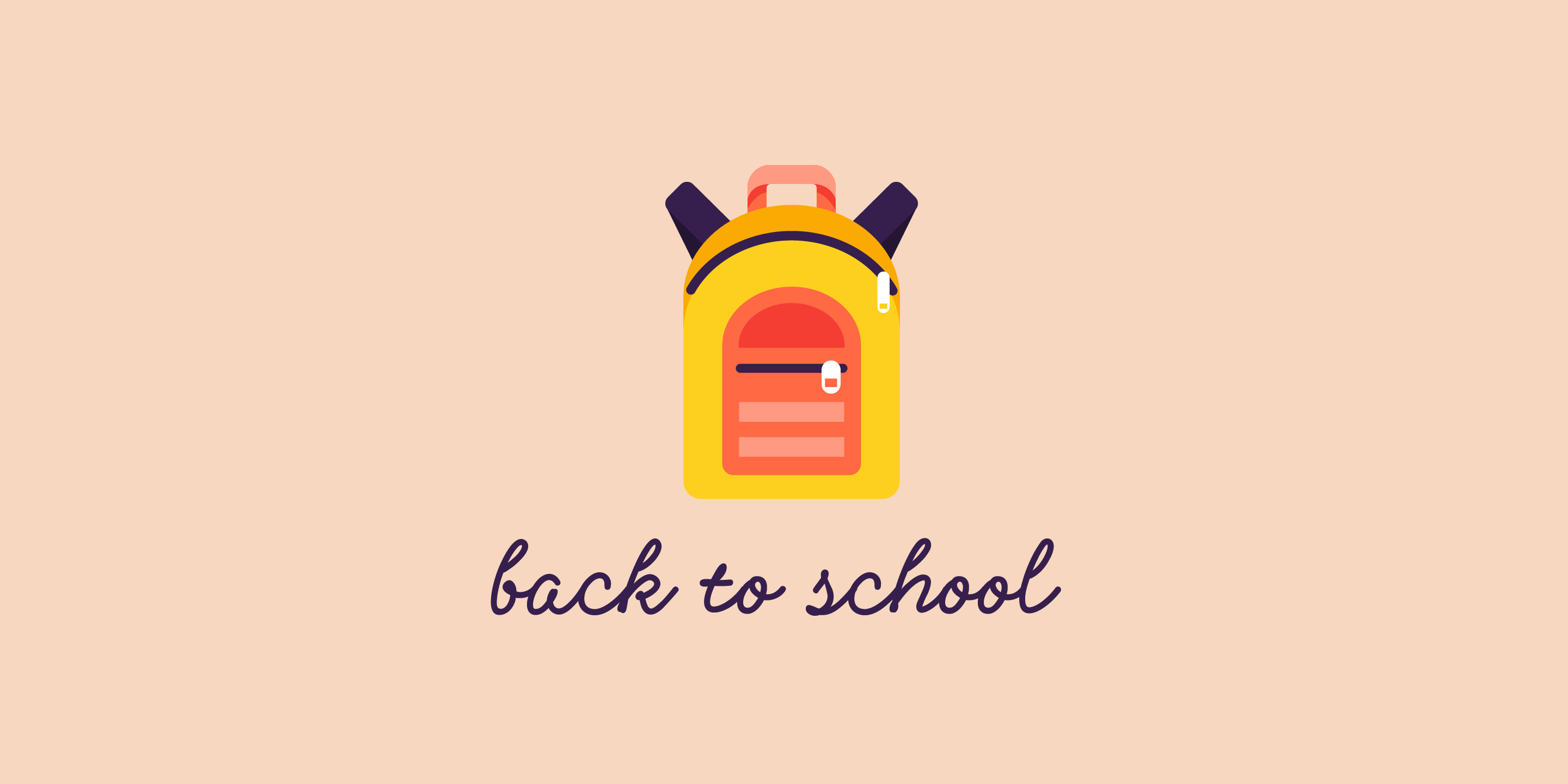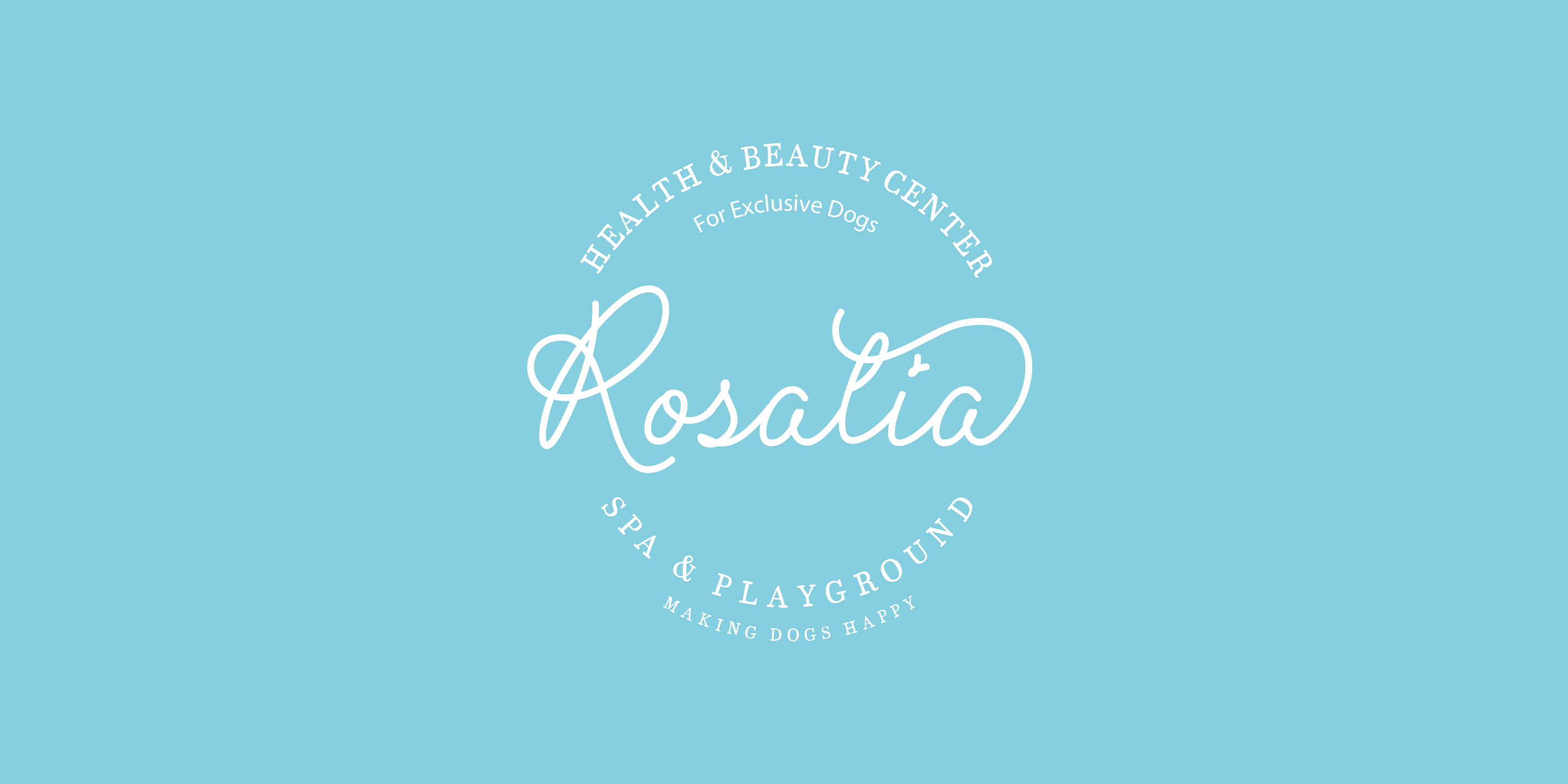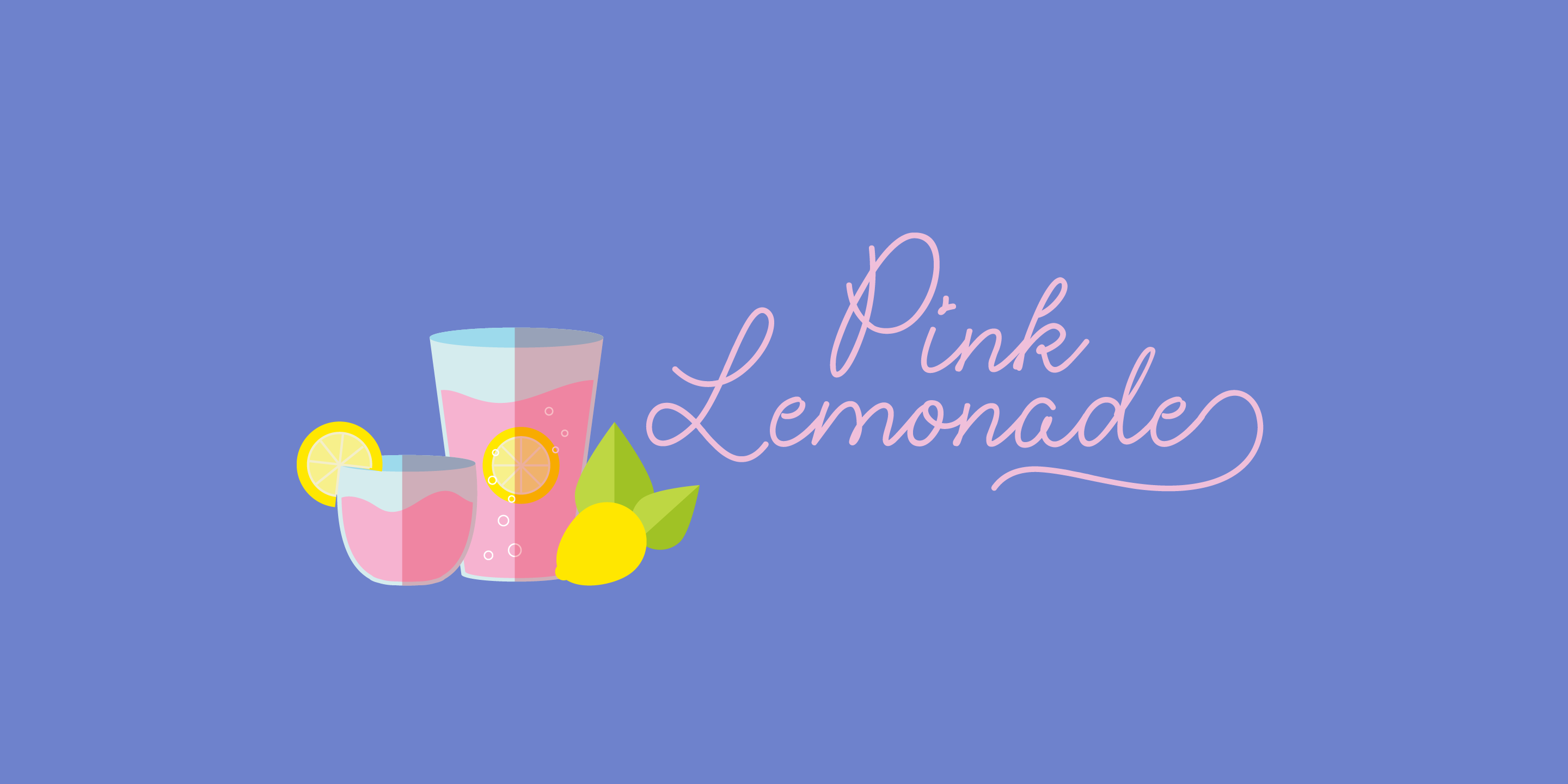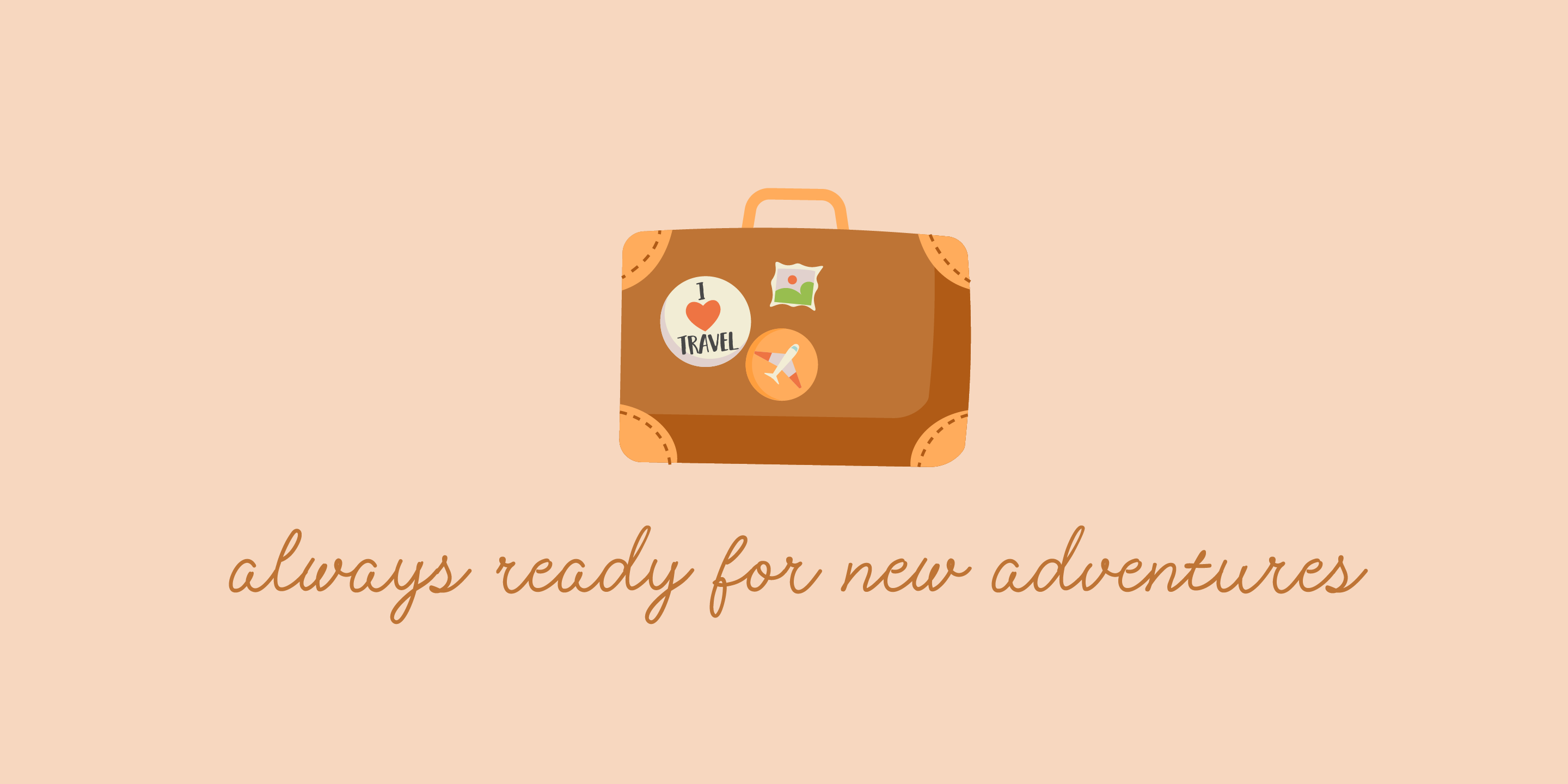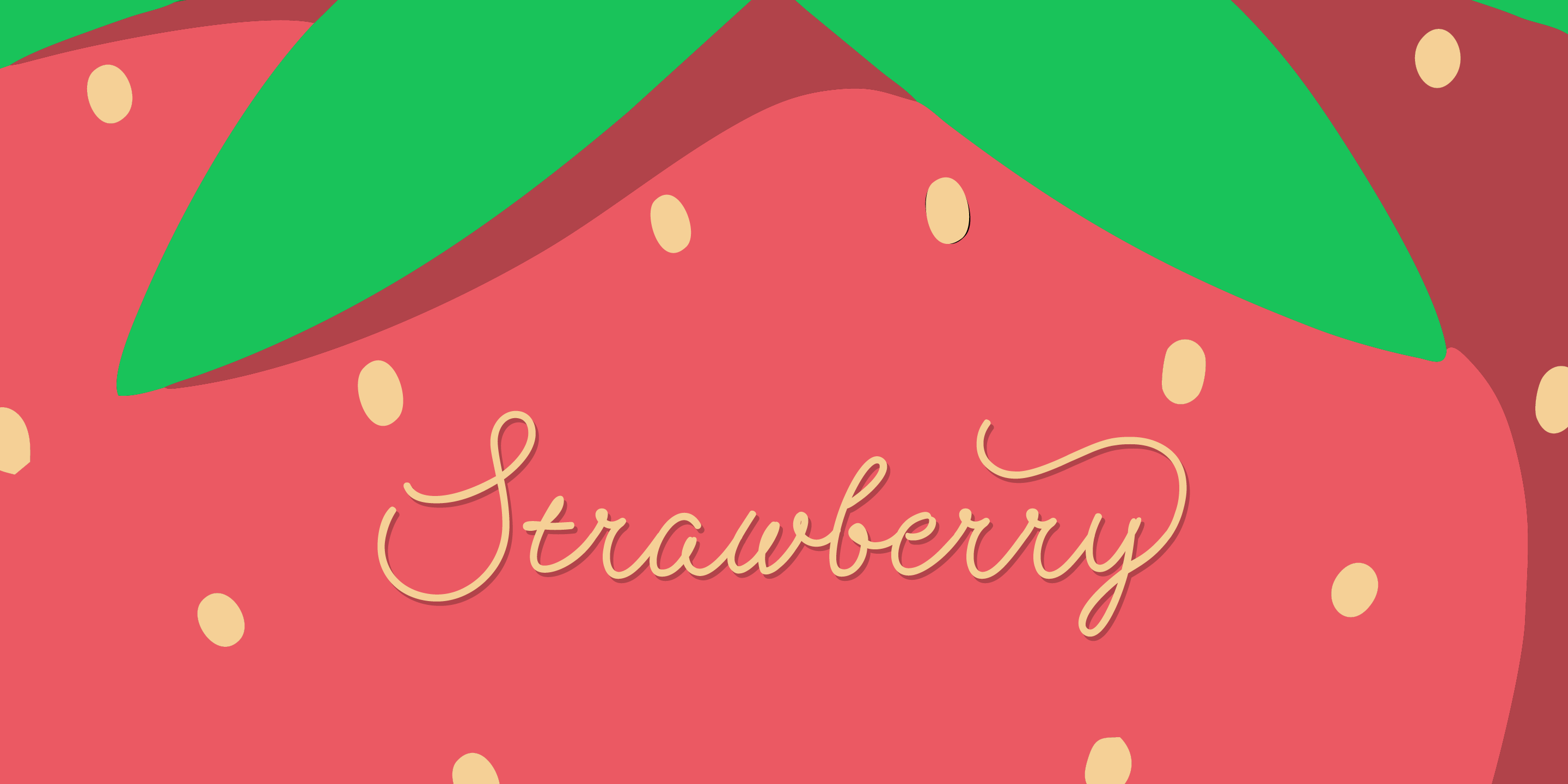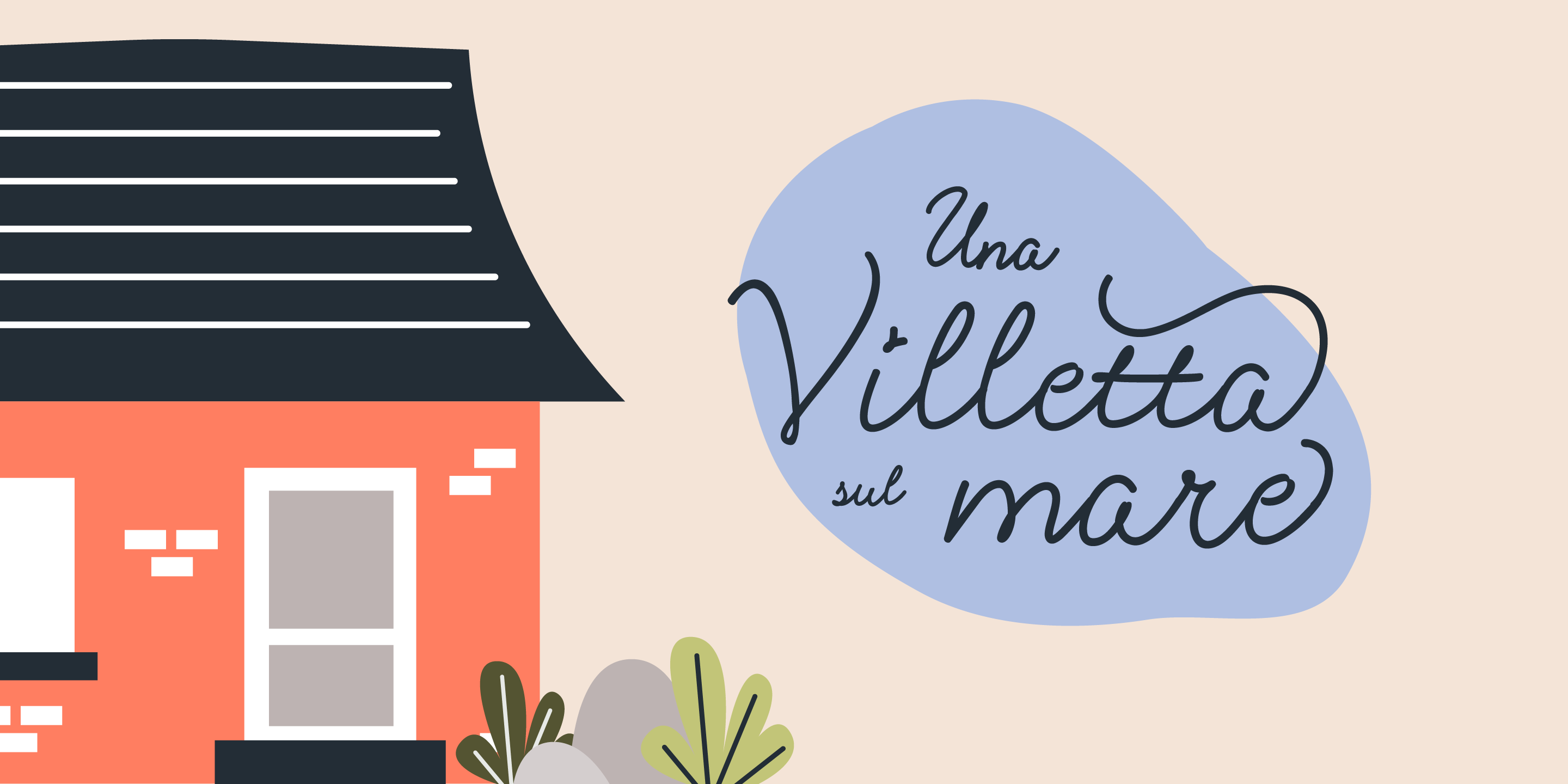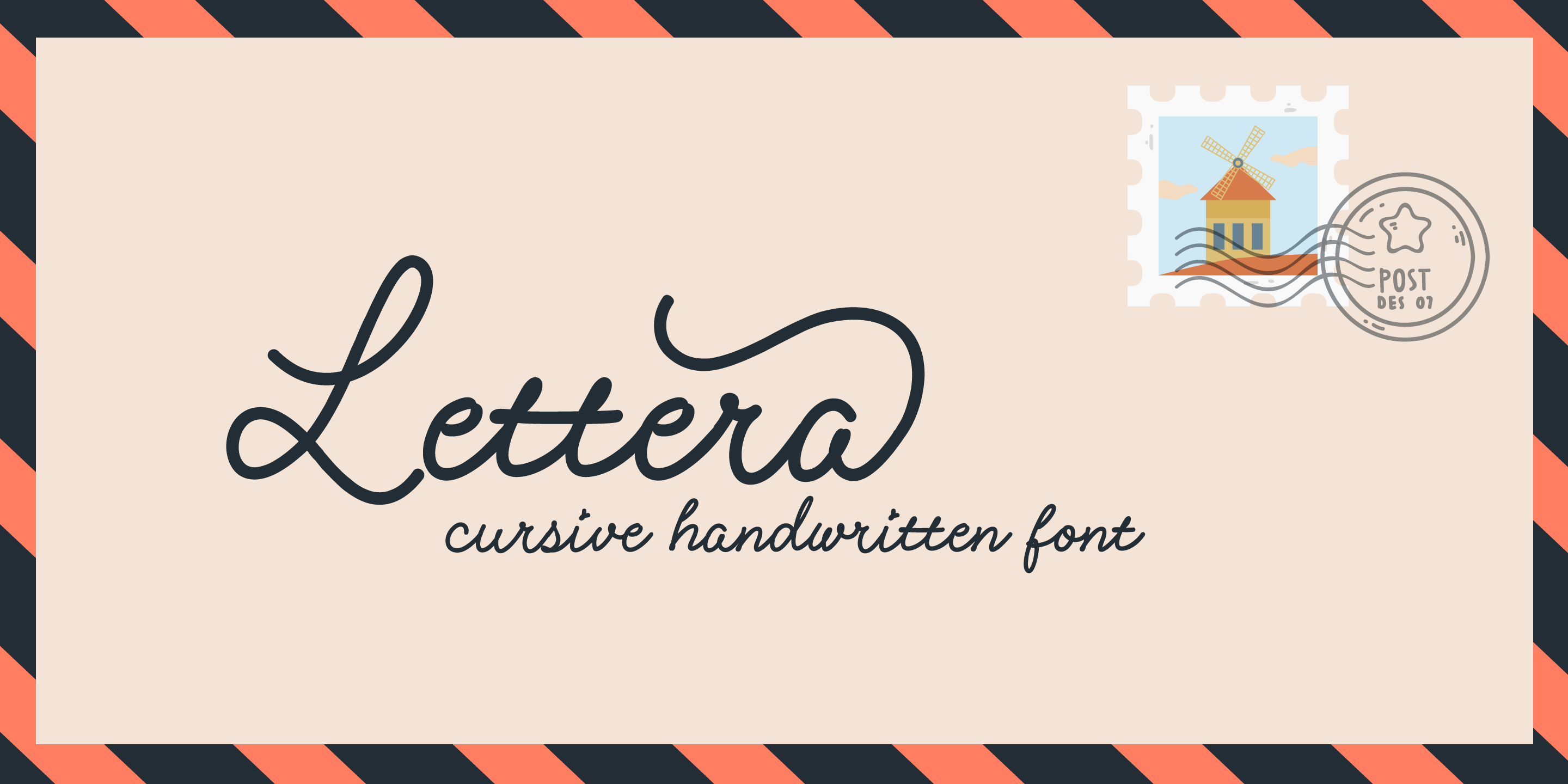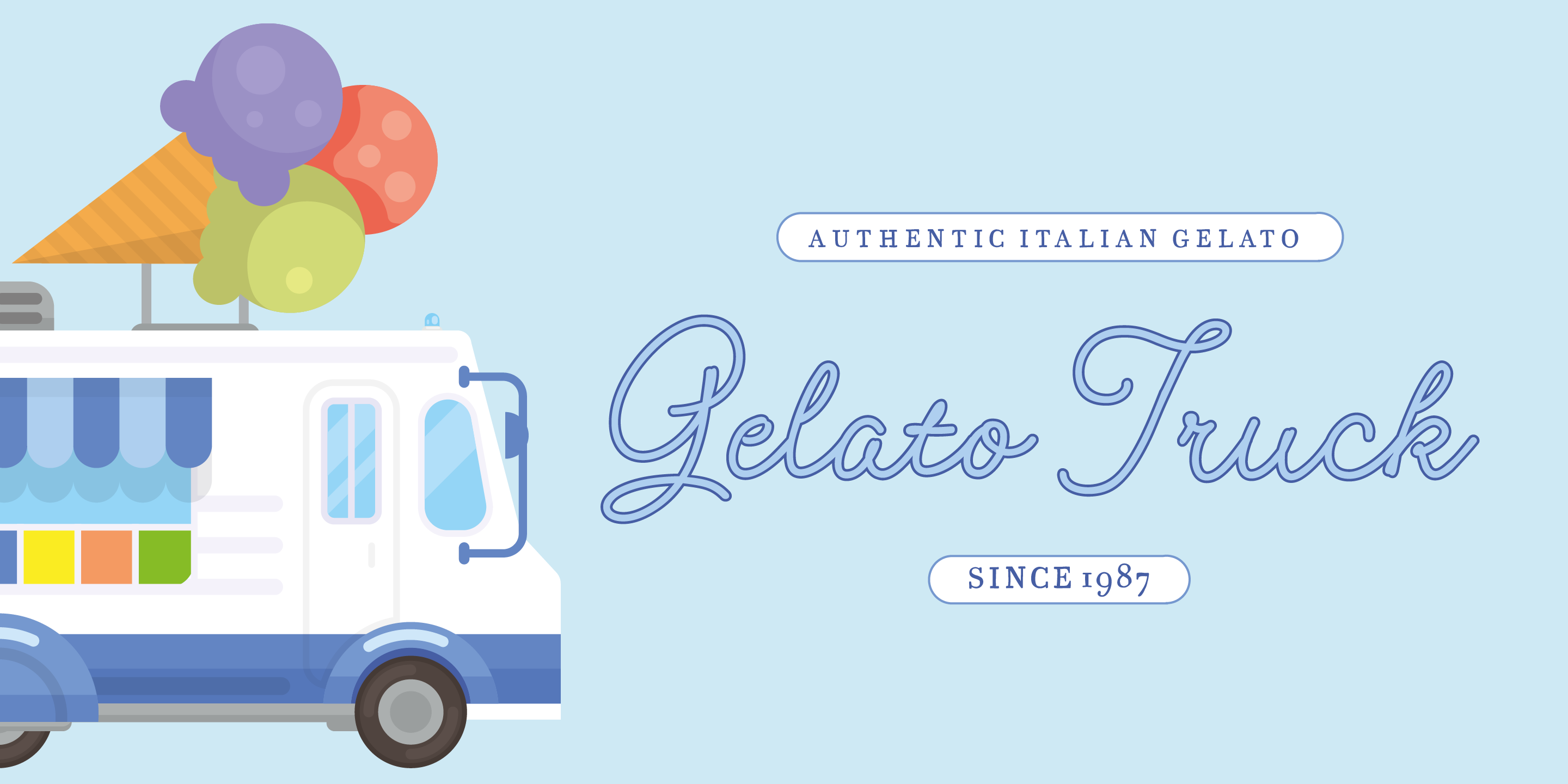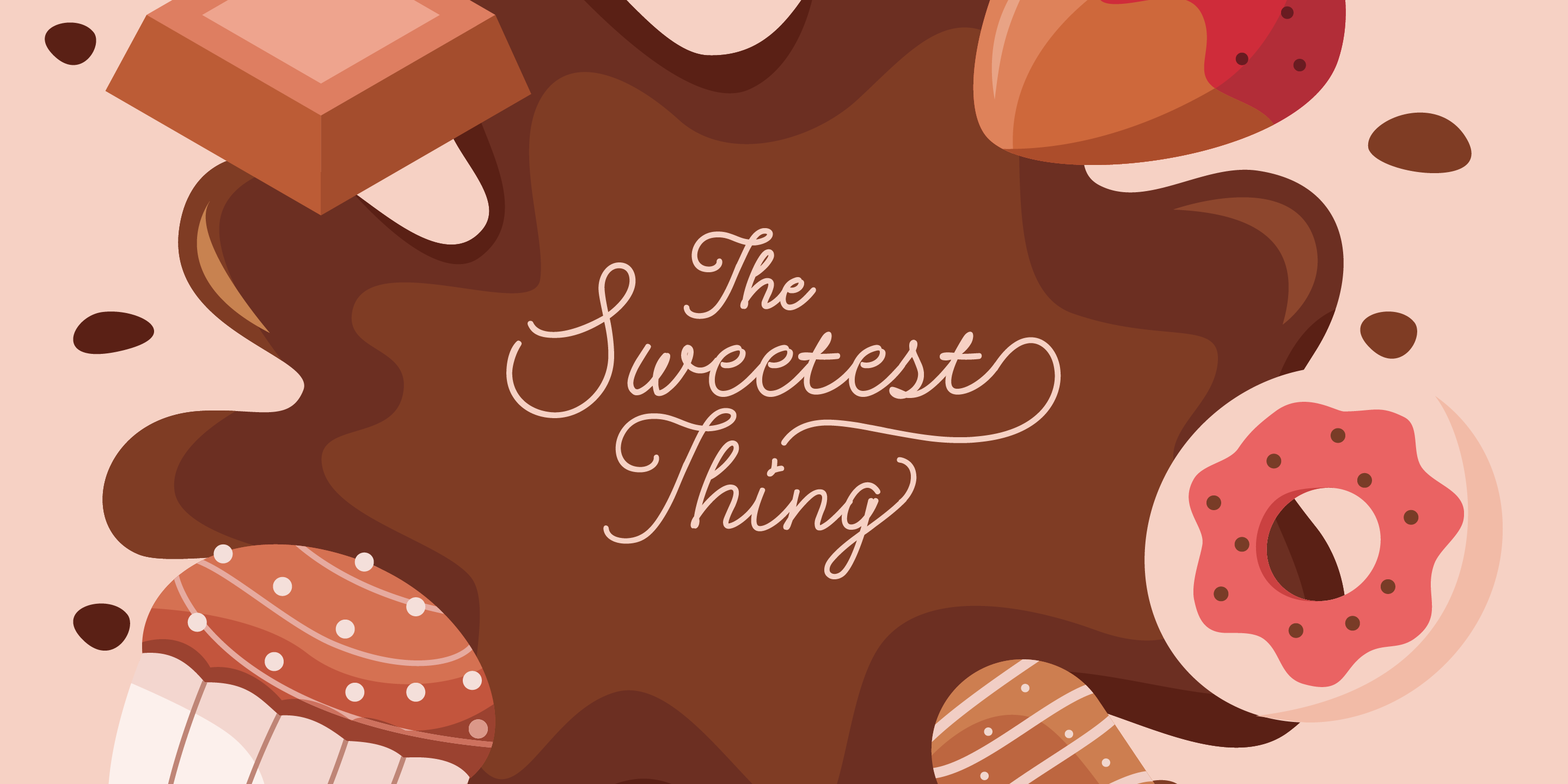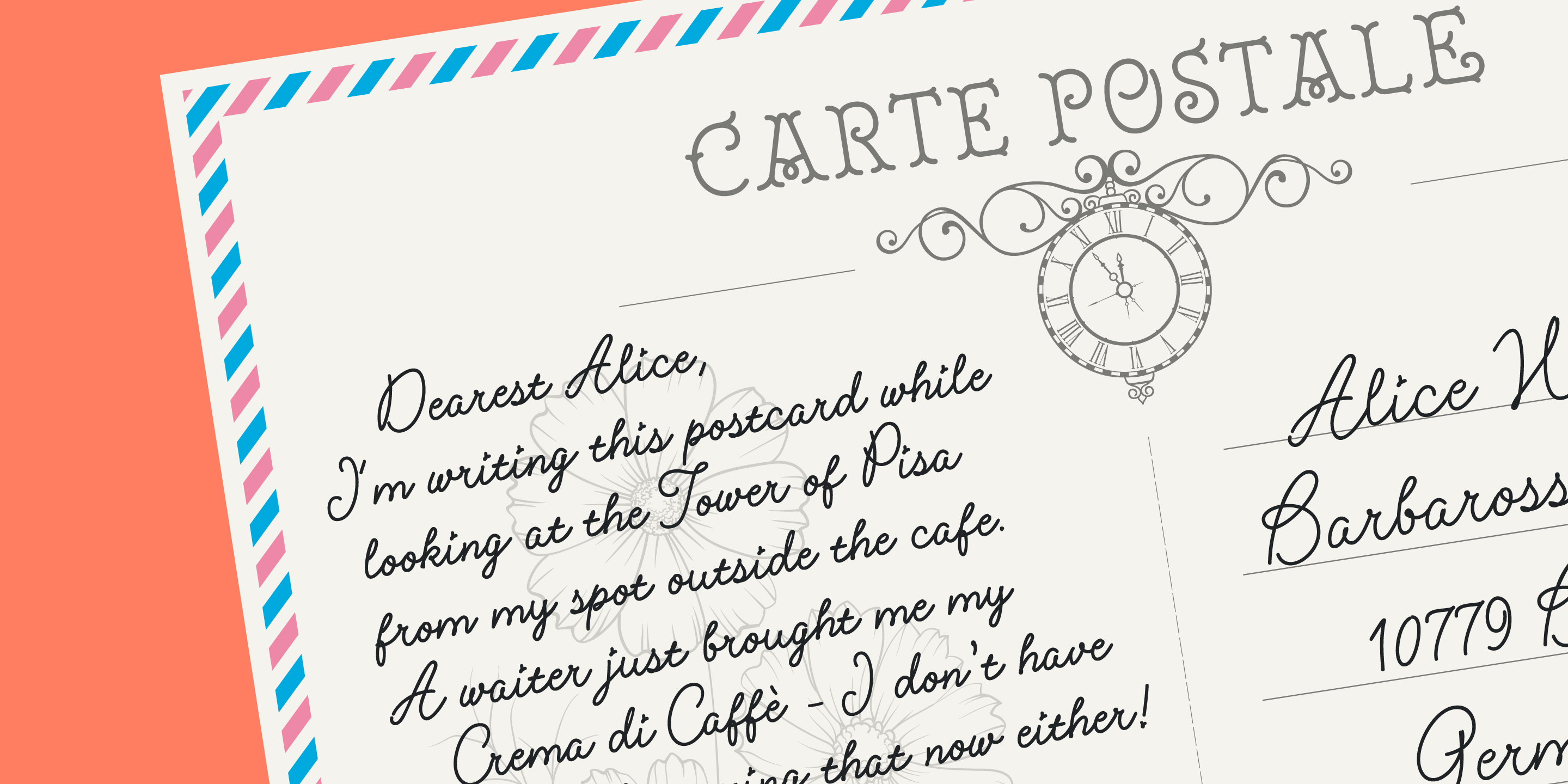
Lettera
Script Medium
Script
Script Thick
Monoline Script
Lettera
Designed by Resistenza Type FoundryLettera – Delivering 20th-century penmanship vibes, this monoline script font accomplished with rounded nib carries the soul of a romantic naive hand.
Connected letterforms Illustrate a charming revival of handwriting. With 400 glyphs including alternates, swashes and ending forms, this typeface is perfect to create beautiful decorative custom headlines and wordmarks.